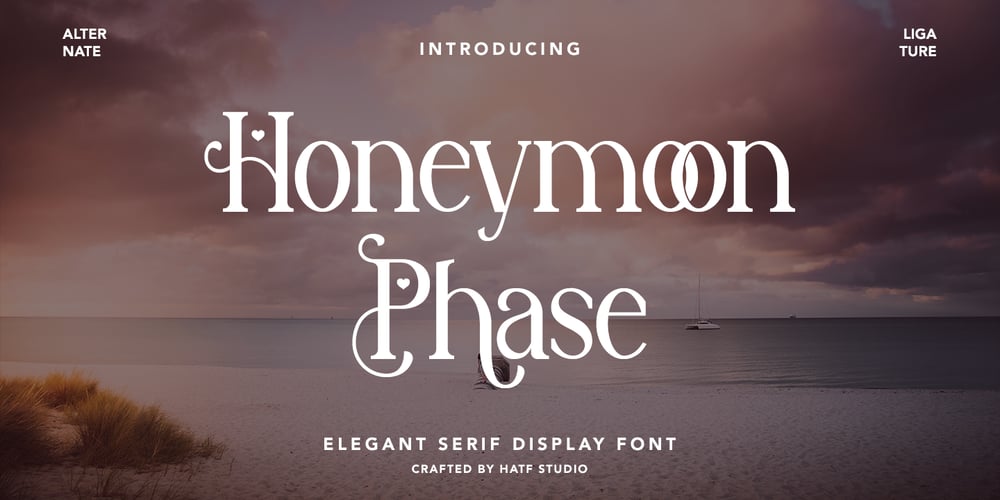
Honeymoon Phase Font Family was designed by Asep Rendi and published by Hatftype. Honeymoon Phase contains 1 styles and family package options. Is a elegant serif font with distinctive handwritten characters perfect for branding projects, logos, wedding designs, media posts, advertisements, product packaging, product designs, labels, photography, watermarks, invitations, stationery, and any project who need handwritten dishes.Features :1. Uppercase & Lowercase2. Multilingual support3. Number4. Symbol5. Punctuation6. Support in Mac and Windows OS -Support in design application (photoshop, illustrator, and more)I really hope you enjoy it.